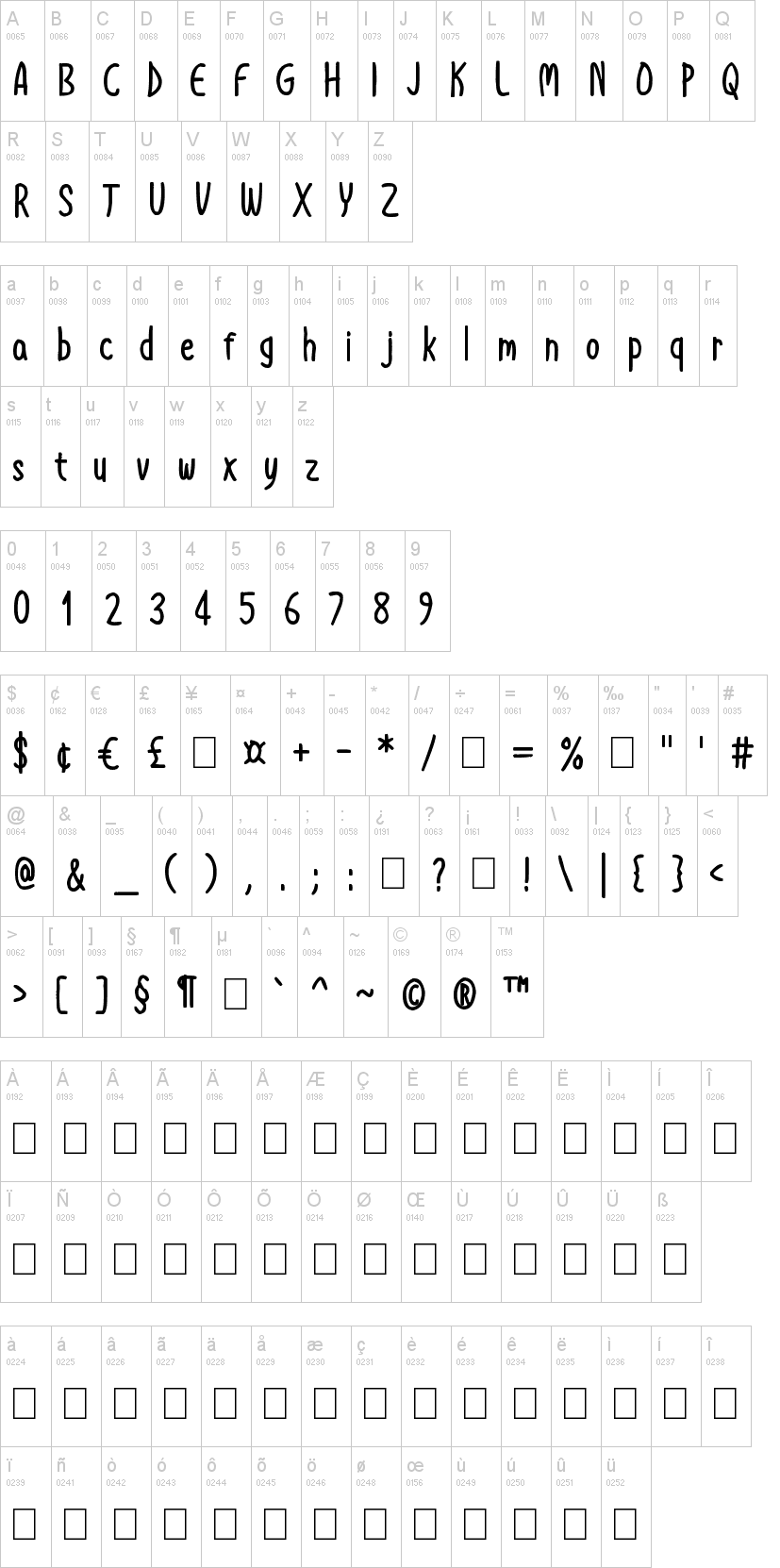
Note of the authorHi! This is my font Autumn Happiness! It is a beautiful handwritten font. If you want to use it for personal use, you can download it here for free!